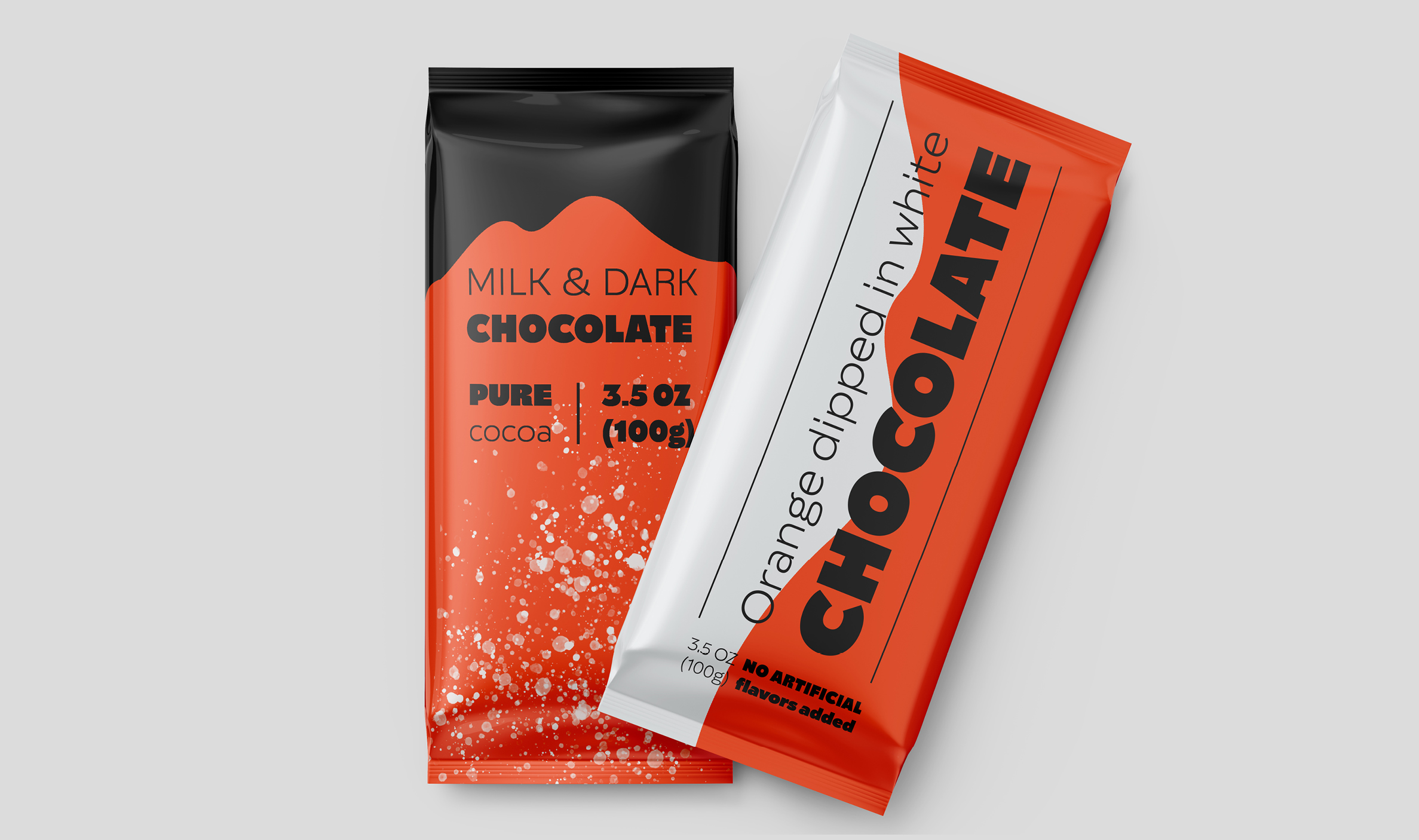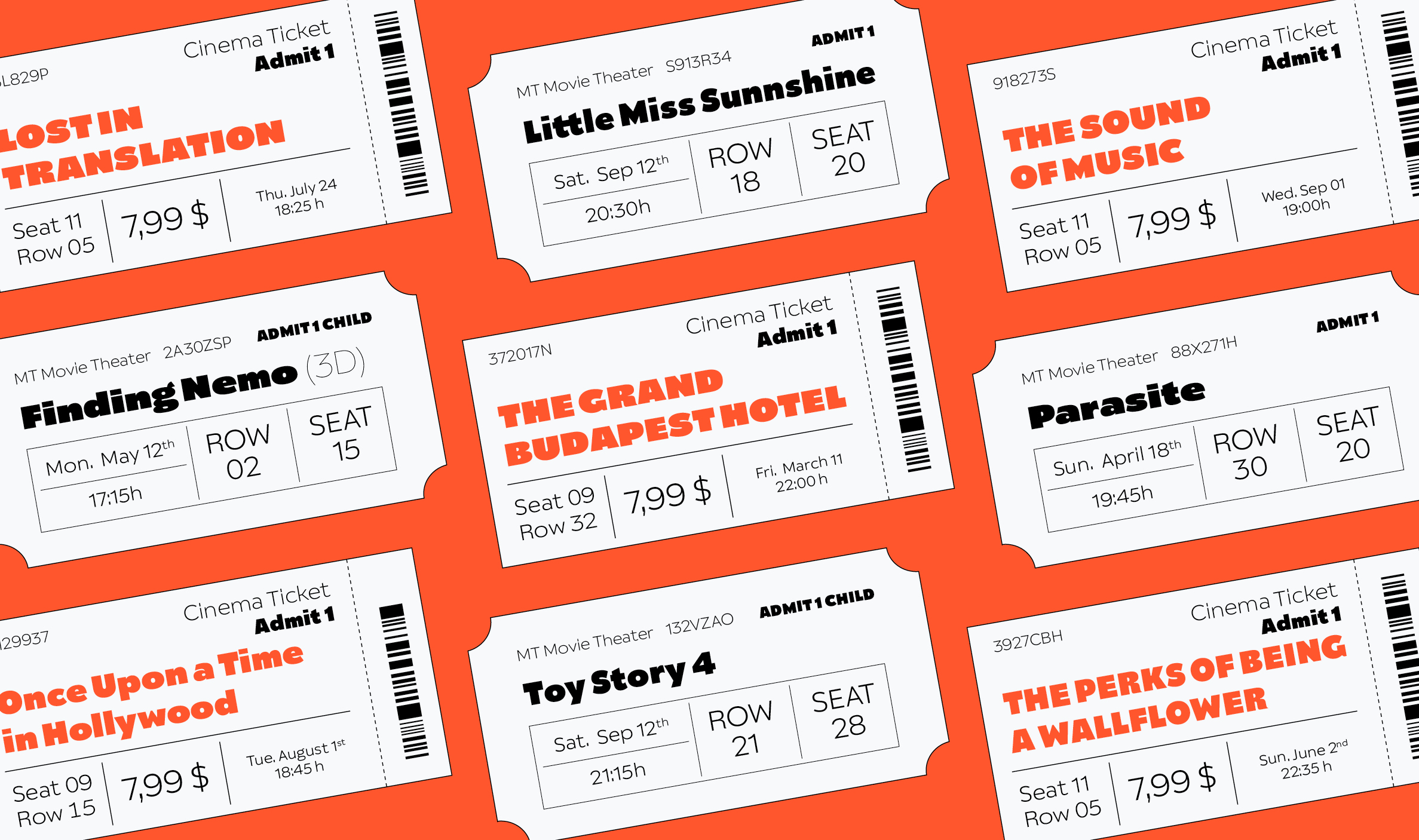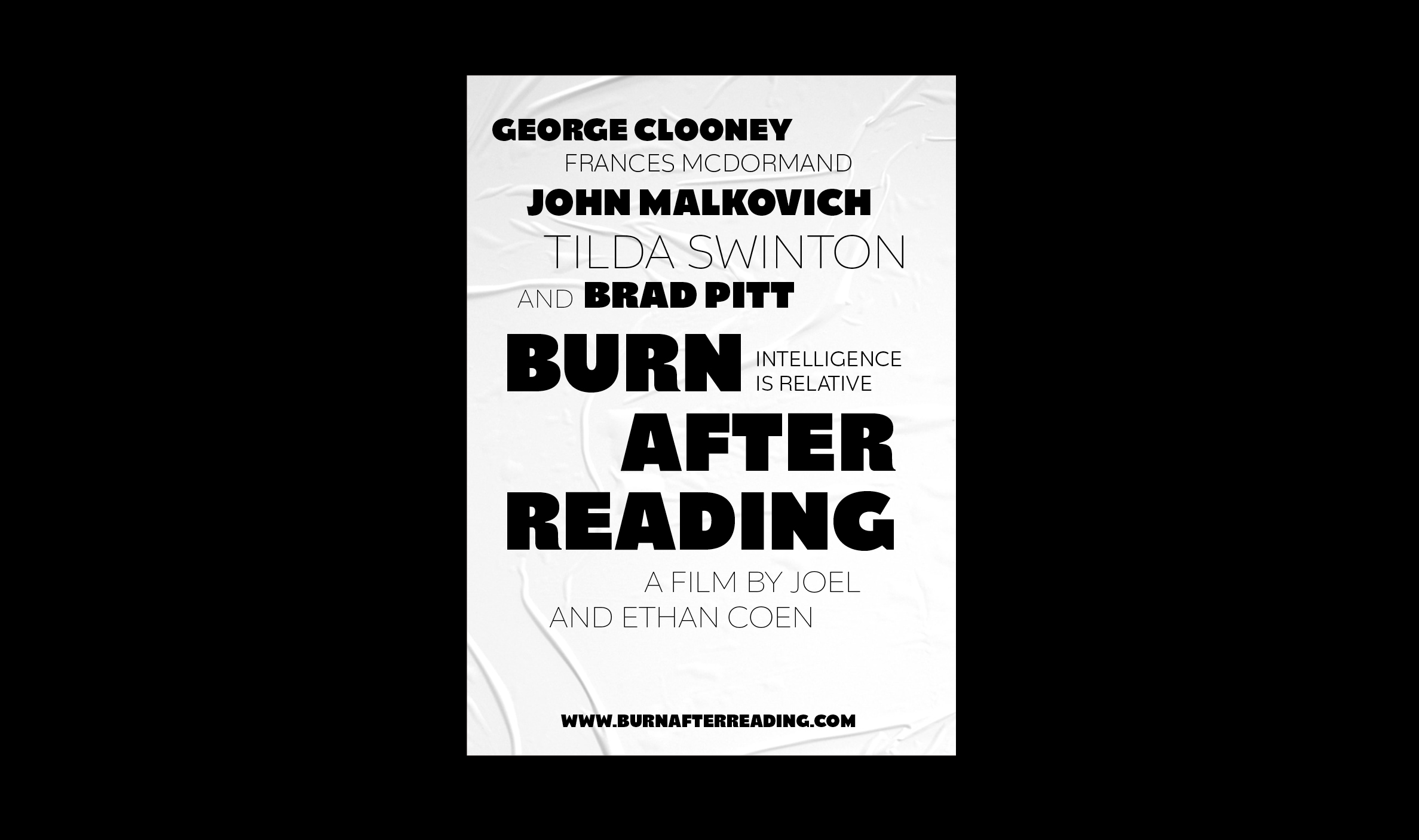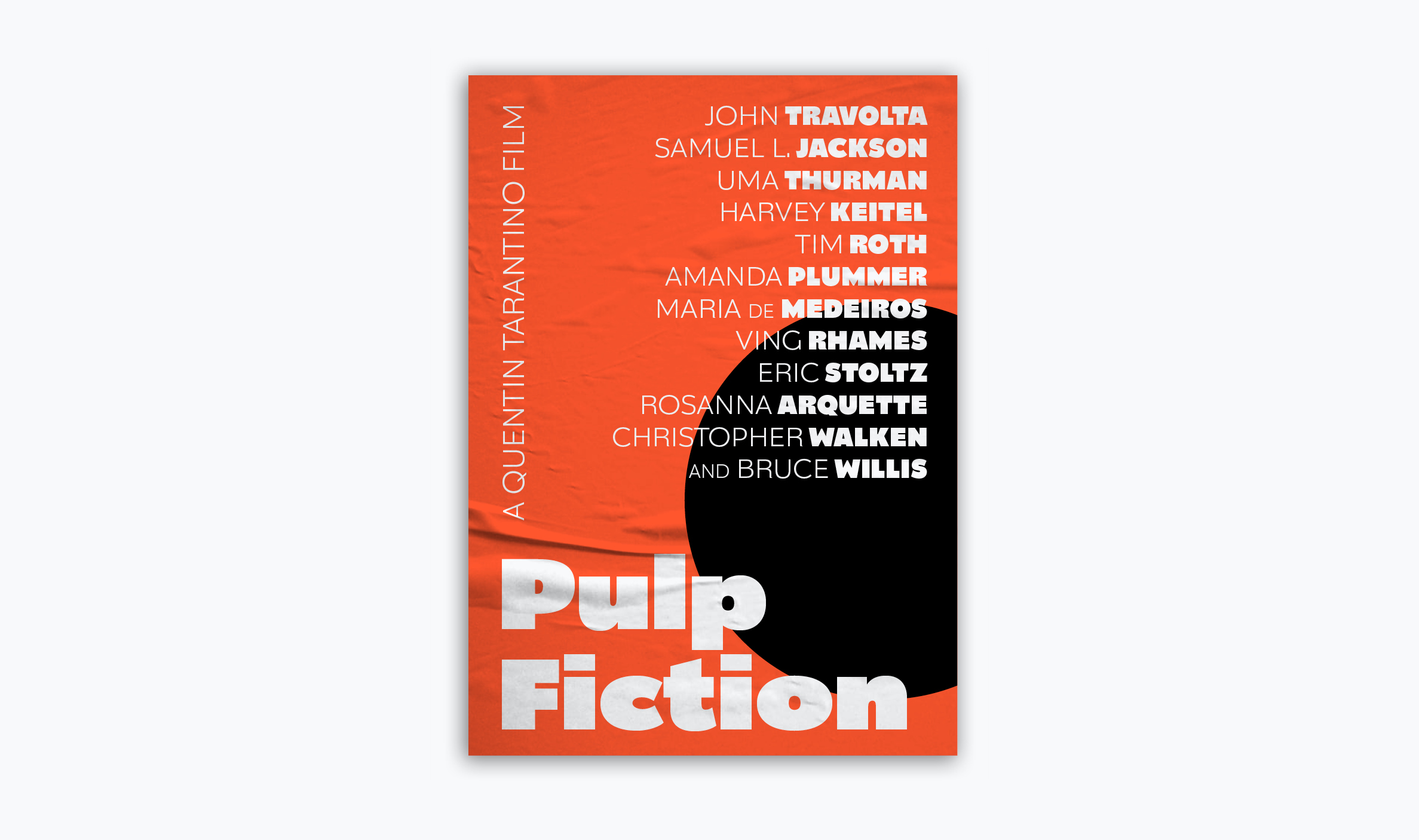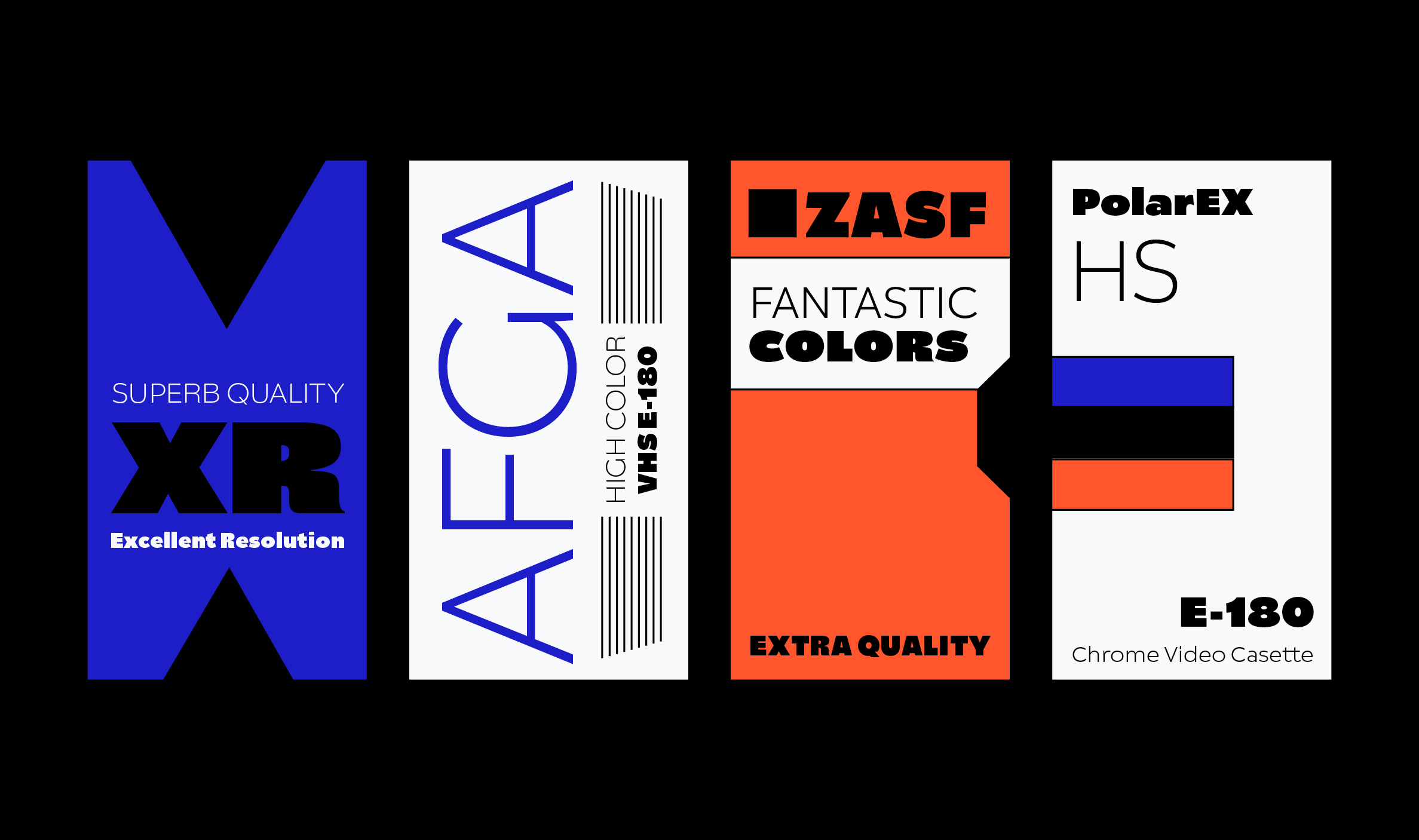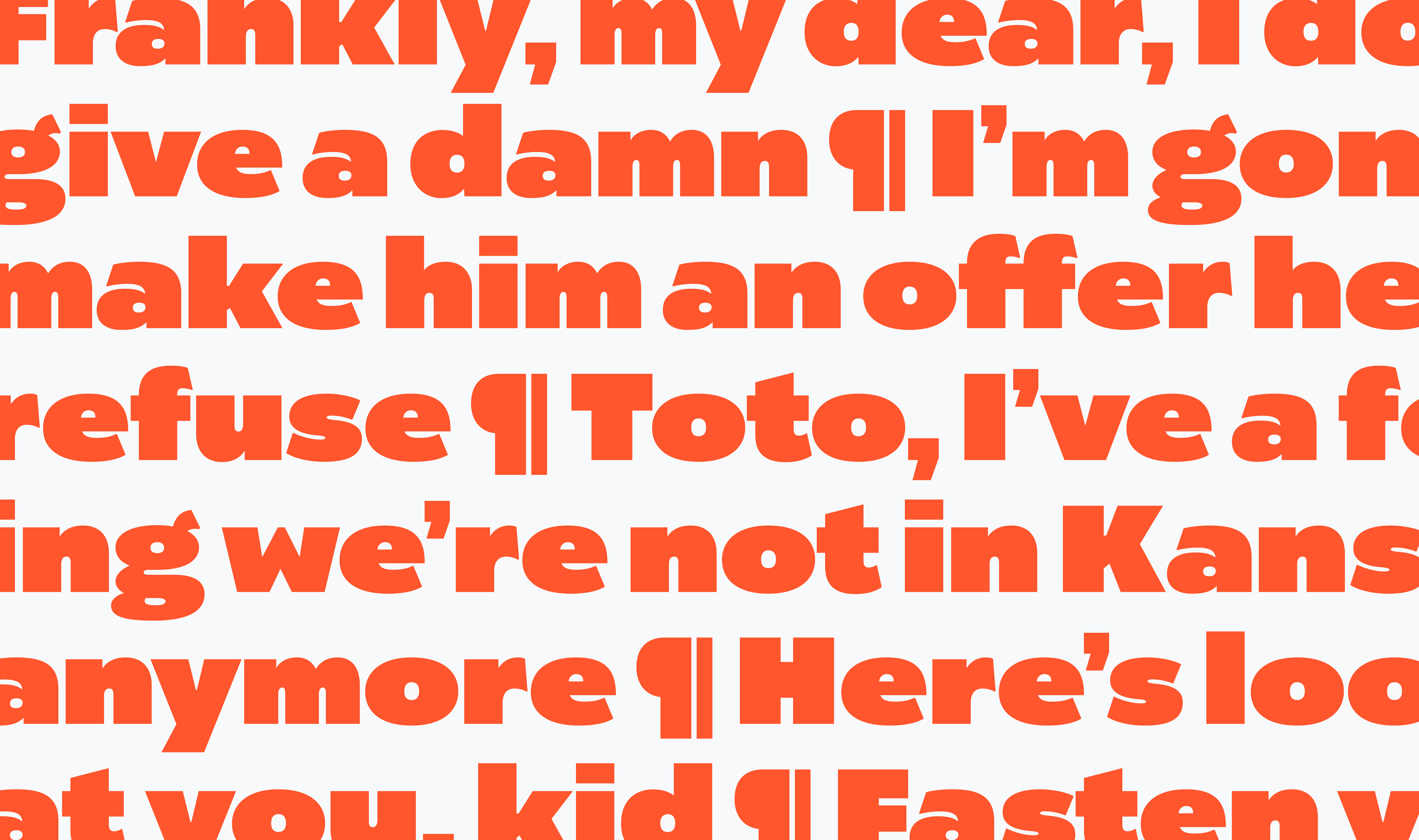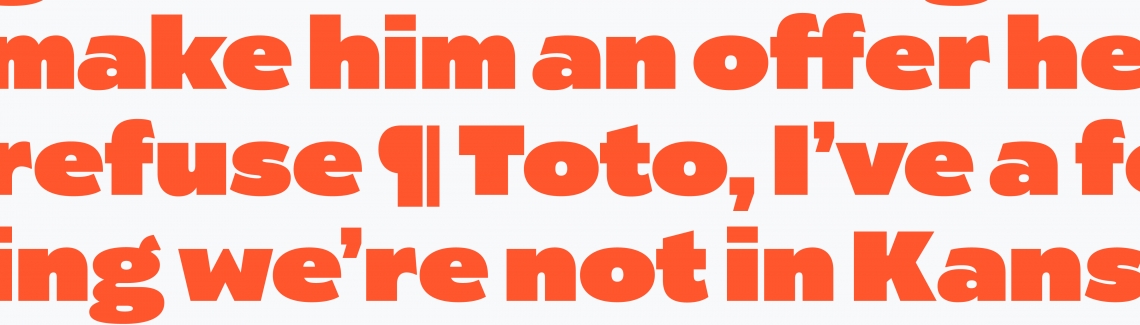
New release: Catalpa
We are happy to welcome the first member of a trio editorial suite, Catalpa, primed for headlines and designed to leave a wide wake.
We have just finished the unboxing for José, Azza, and Veronika’s newest family, Catalpa, and it’s a knockout! This targeted family only has four thin and four heavy weights — yep, no regular weights on purpose. And that purpose is for headlines, callouts, enormous sizes, stark contrast, strong impressions, and a lot of fun. Catalpa was made to be an overwhelming headliner, like the quirky and hulking wood type that inspired it. If you purchase the full bundle, we’ve included Catalpa in the variable font format, which means it’s a great option for websites and apps. Check Catalpa out on our website type tester and enjoy the short video.